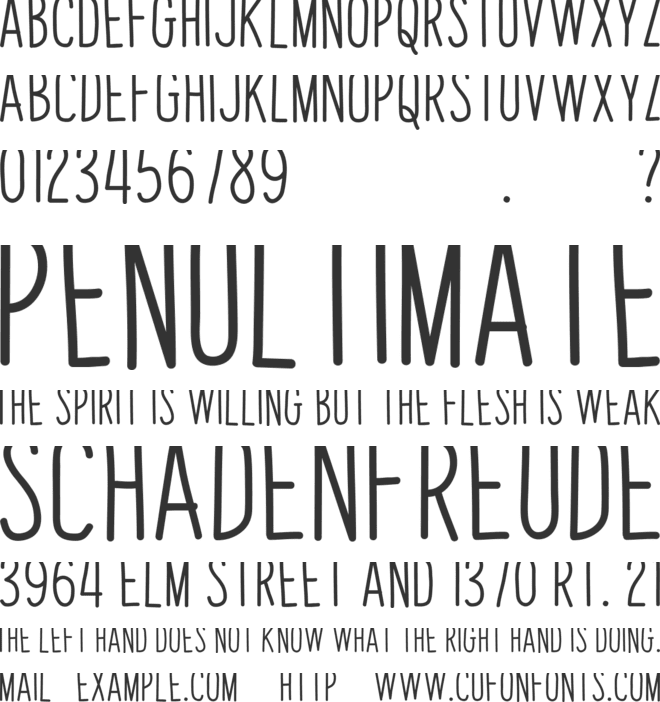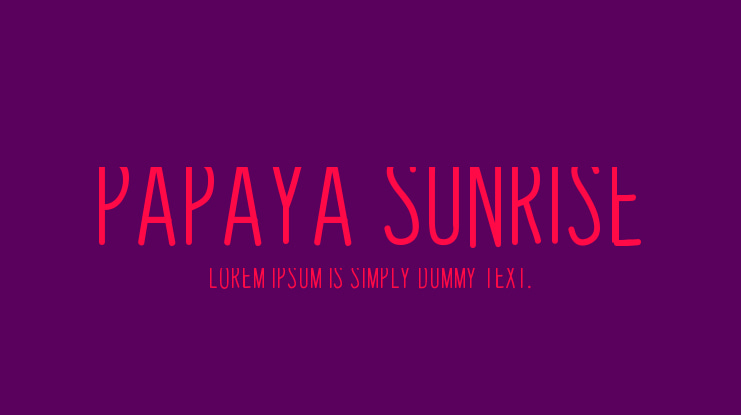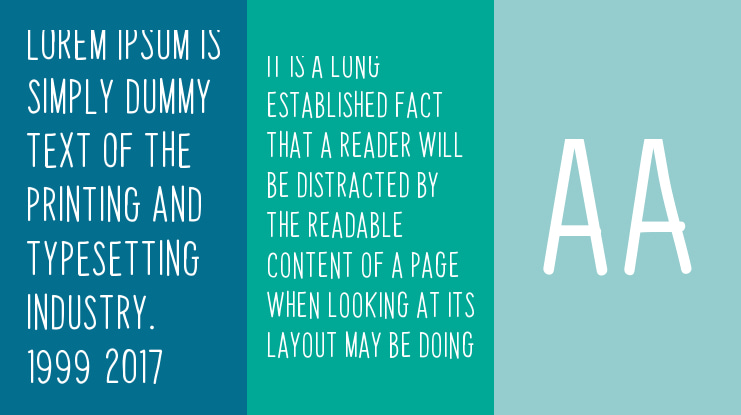
Papaya Sunrise Font
Papaya Sunrise is an all caps display font loosely based on childlike handwriting. Although unrefined in nature it is highly legible and perfect for instances that call for a little informality. Papaya Sunrise would work great in advertising, labels, or in a children’s book. Basic Latin, extended Latin, diacritics, Cyrillic, punctuation, and kerning are all included in the full version. The demo features basic Latin, Cyrillic, and limited punctuation.